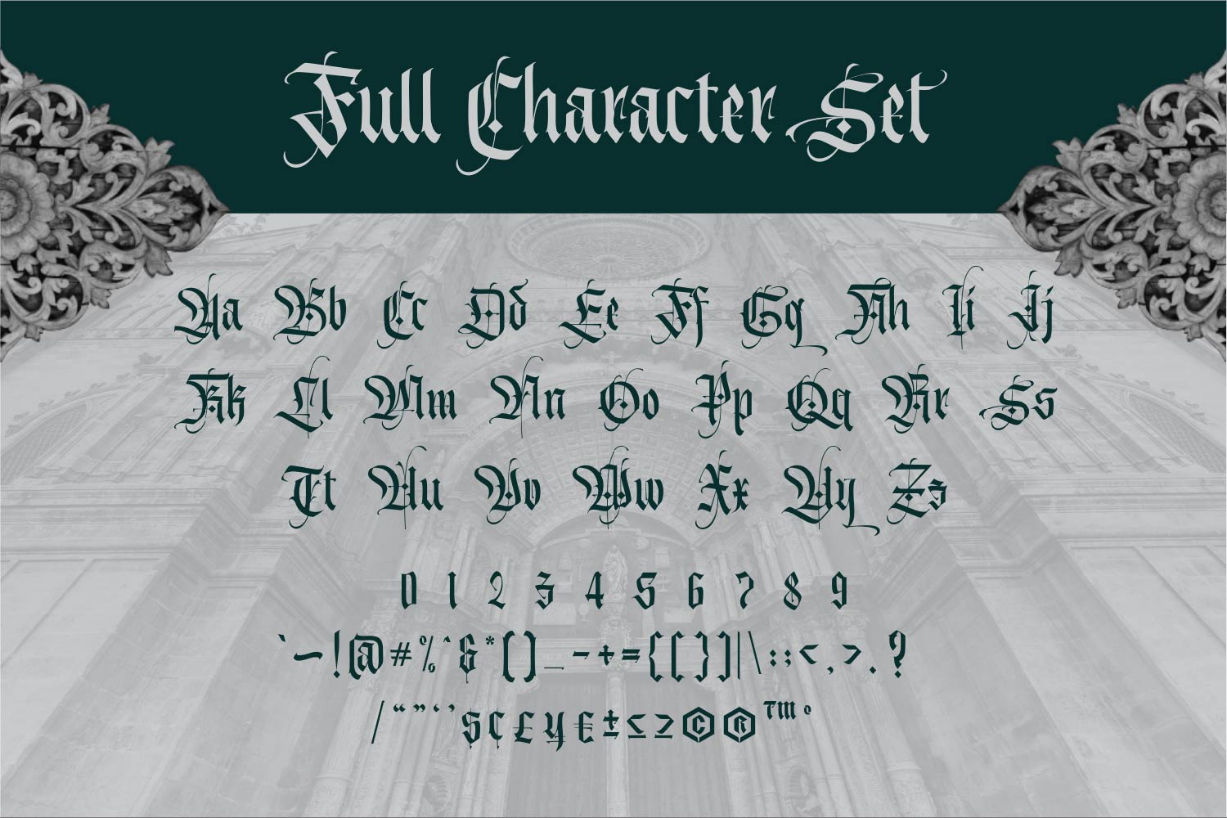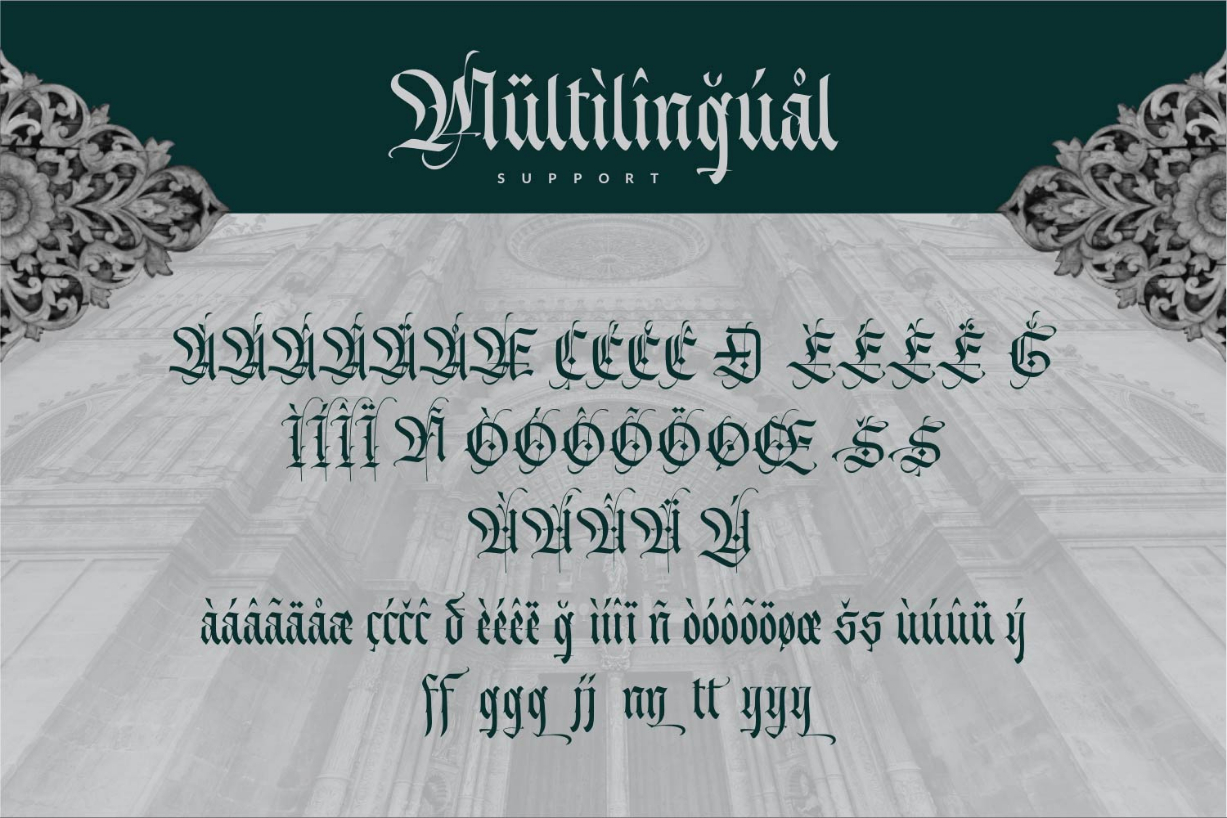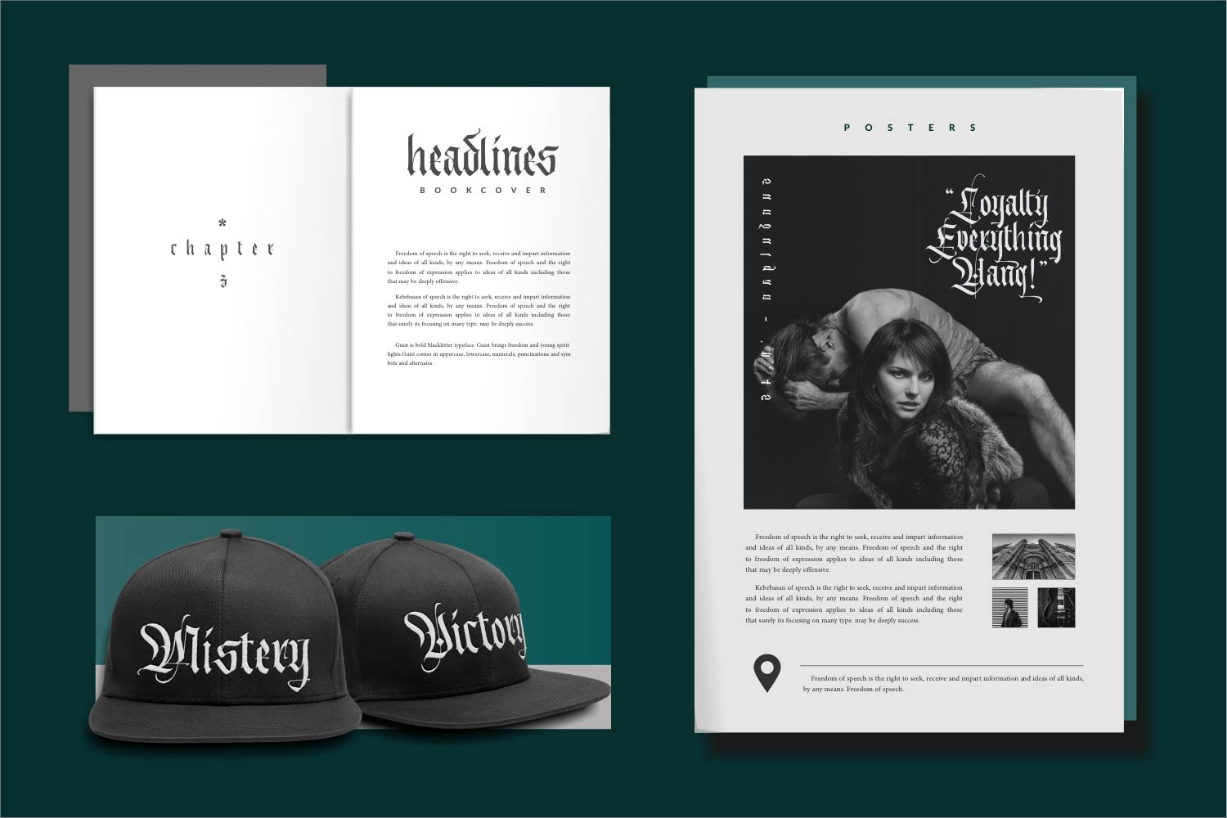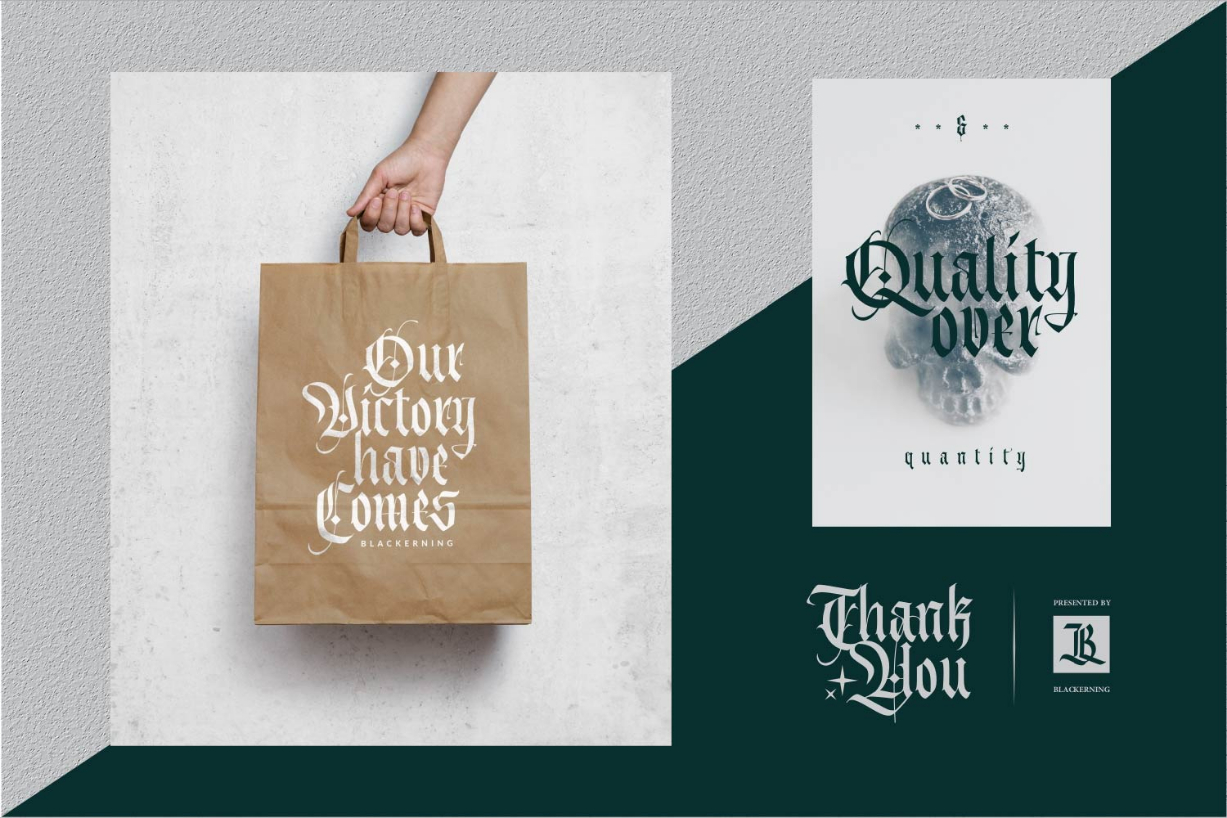
Morsten Font
About Morsten Font
Morsten is a gothic styled blackletter font. Authentic and genuine, this font will elevate each of your formal design ideas. Add it confidently to your projects, and you will love the results.